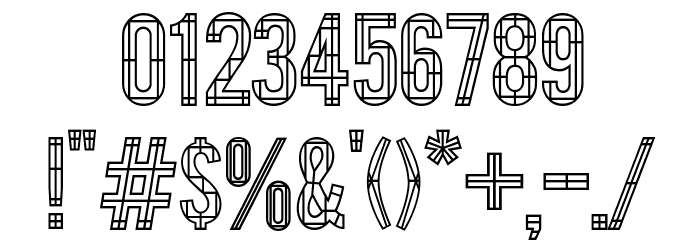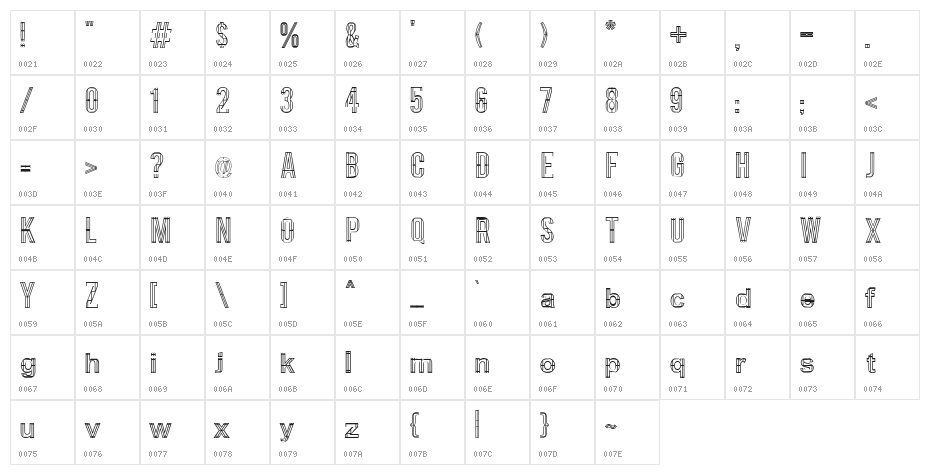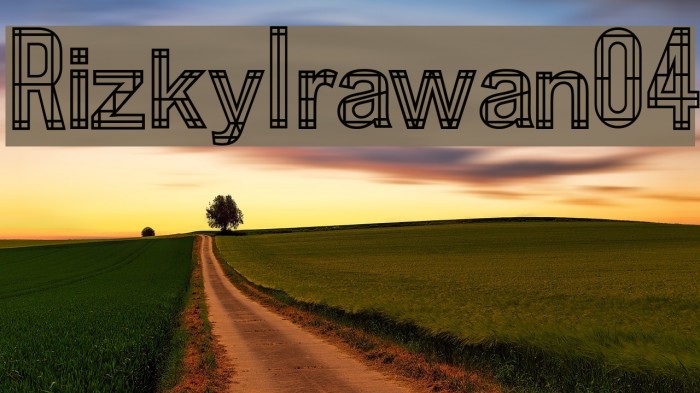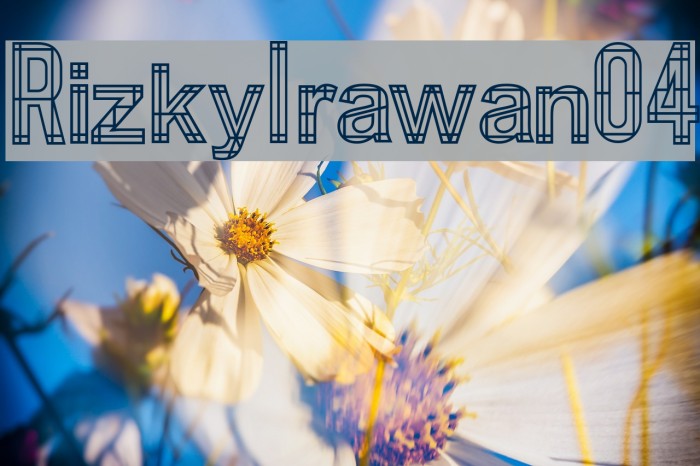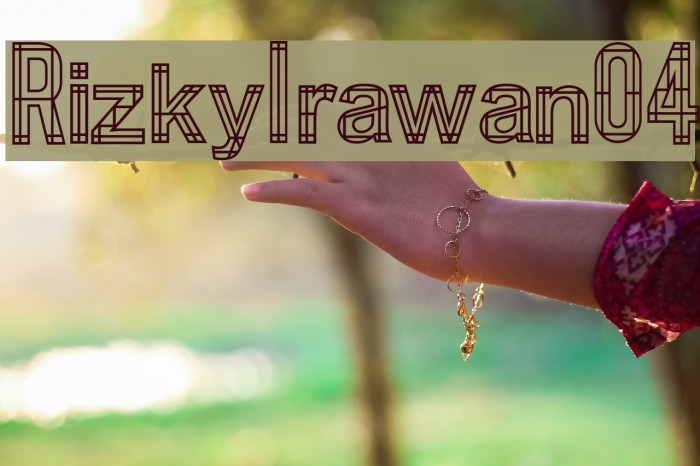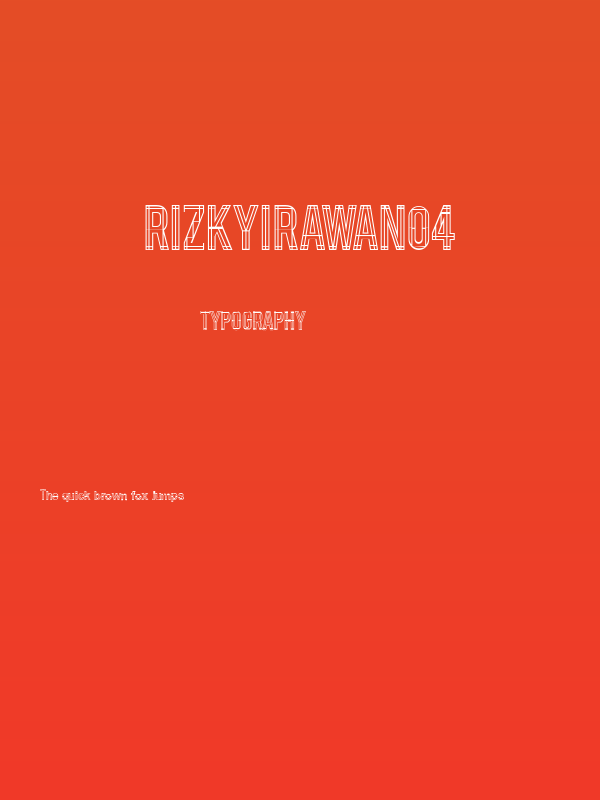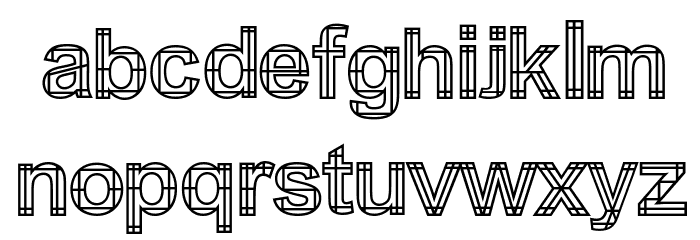
RizkyIrawan04 Font
RizkyIrawan04 Description
This font features a unique, layered design with a three-dimensional effect. Each character is outlined with multiple lines, creating a sense of depth and complexity. The uppercase and lowercase letters maintain a consistent geometric structure, while the numerals and special characters follow the same intricate pattern. This font's bold and decorative style makes it stand out, offering a visually striking appearance that captures attention. The consistent spacing and alignment of the characters contribute to its overall balanced look, making it suitable for various creative applications.
| Overall Style | Modern, Decorative |
| Proposed Projects | Ideal for posters, logos, headlines, and any design project requiring a bold, eye-catching typeface. |